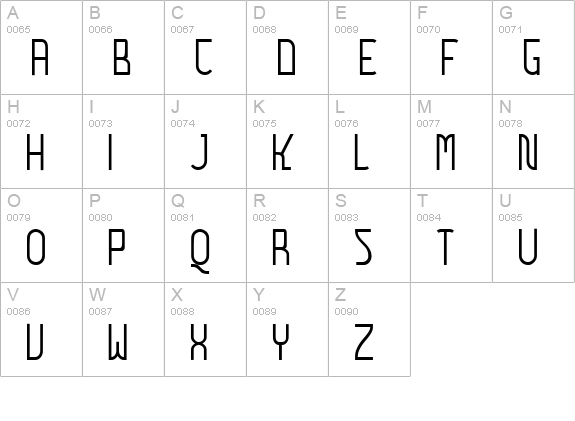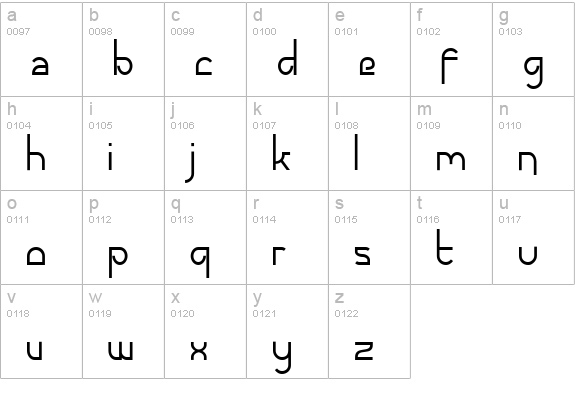
Futurex - AlternateTC is a modern and stylish font that exudes a futuristic and edgy vibe. With its sleek lines and unique alternate characters, this font is perfect for adding a contemporary touch to your designs. The sharp angles and geometric shapes make it stand out, while the alternate glyphs offer versatility and creativity in your projects. The best part? Futurex - AlternateTC is available for free download at FontsMarket.com. You can easily access this font and enhance your designs with its bold and eye-catching appearance. Whether you're working on branding, posters, or digital designs, Futurex - AlternateTC is a versatile choice that will make your work pop. Download it today and elevate your design projects with this modern and striking font.